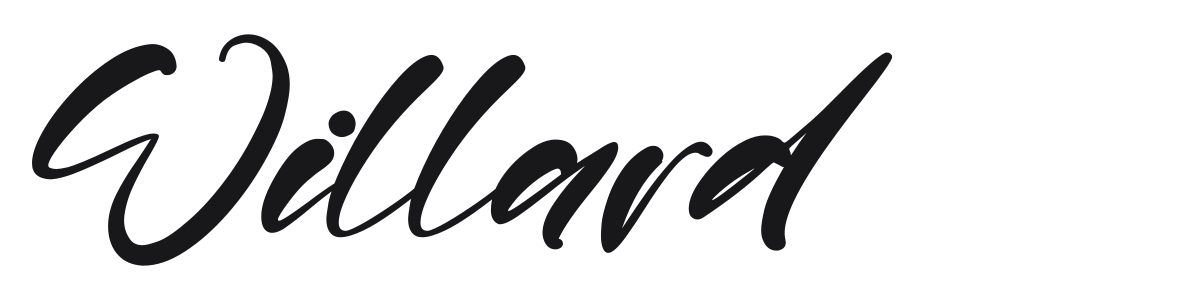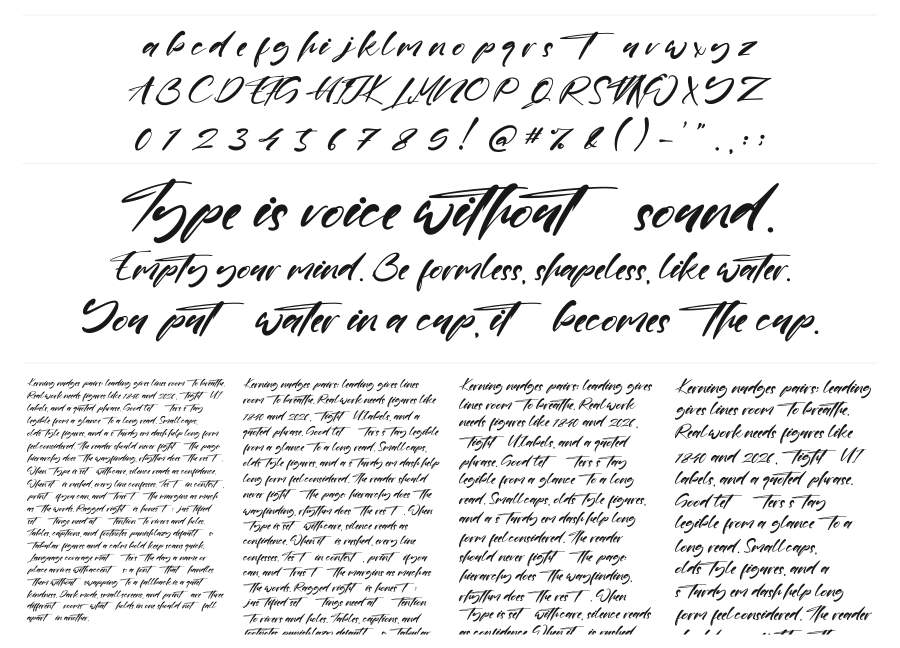
Willard
Willard is a bold brush script with the raw energy of ink-on-paper lettering. Thick downstrokes contrast sharply against hairline connecting strokes, and dramatic swashes pull the eye through each word. It brings a handcrafted, confident personality to logos, packaging, and editorial headlines.